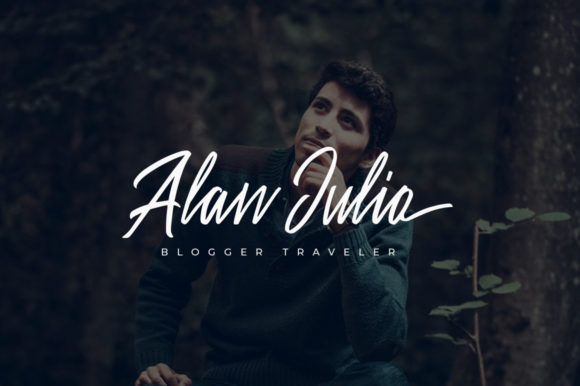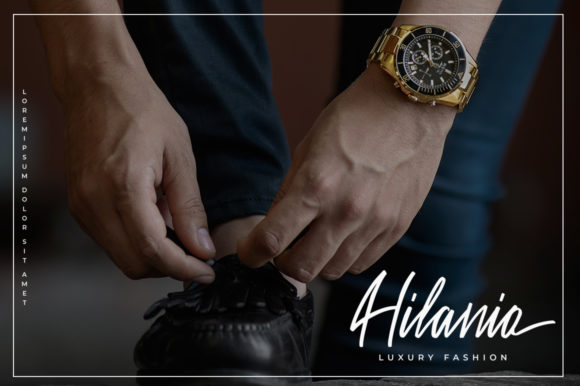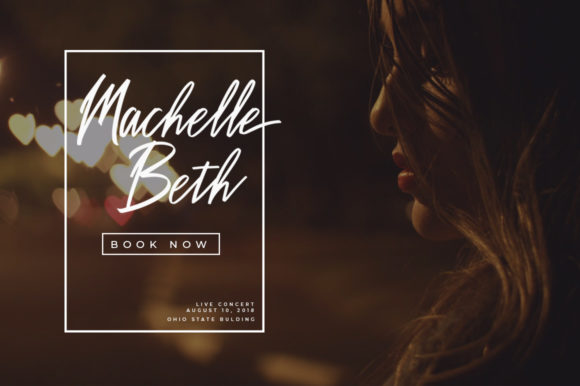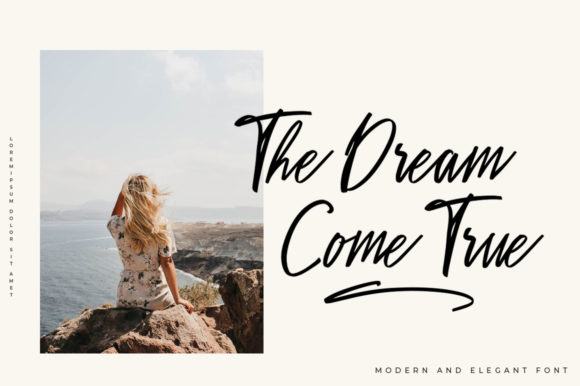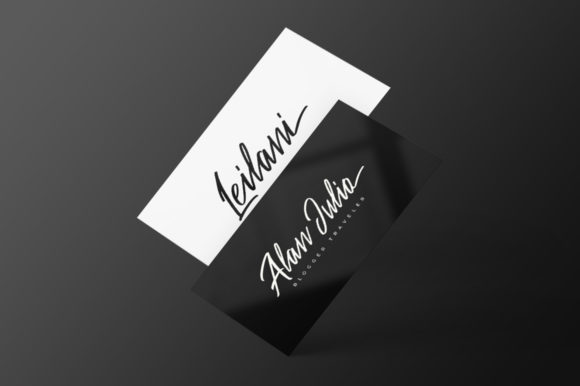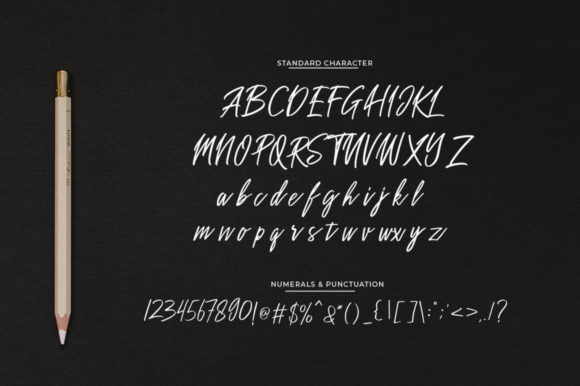
Introduction to Sakodota Font Font
Fonts play a crucial role in design, and the Sakodota Font font is a typeface that brings both character and versatility to any project. Whether you’re working on a branding project, a website, or a print design, the Sakodota Font font offers a unique style that can elevate your work.
The Sakodota is an elegant and classy signature script.
It has a natural handwritten style which is perfect for adding a personal feel to your designs .
Key Features of Sakodota Font Font
Why Choose Sakodota Font Font?
The Sakodota Font font is more than just a typeface – it’s a design tool that helps you communicate your message with style and clarity. Its unique character set and versatile design make it suitable for a wide range of applications, from elegant invitations to bold headlines.
With its carefully crafted letterforms and balanced proportions, the Sakodota Font font ensures readability and visual appeal across all mediums.
What makes Sakodota Font font special?
The Sakodota Font font stands out with its unique design, exceptional readability, and versatility across various design applications.